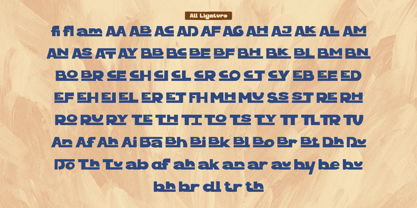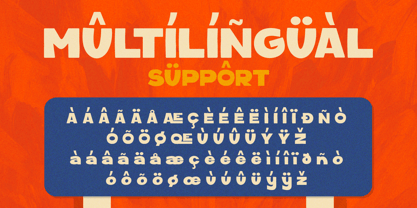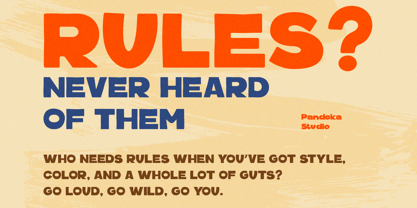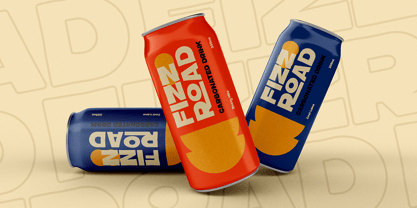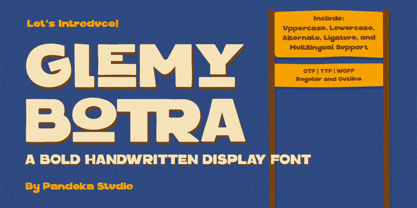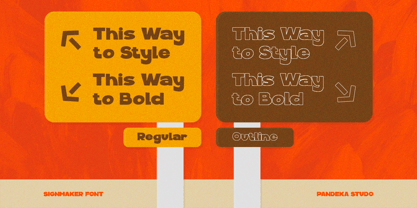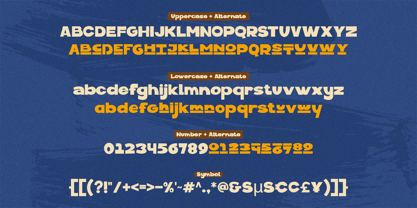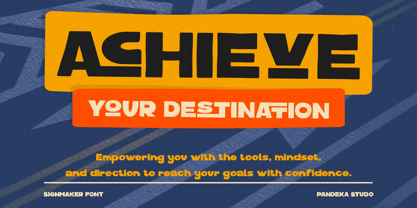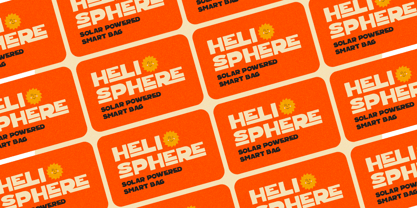
Glemy Botra
The Glemy Botra Font Family was designed by Sagara Nararya and published by Pandeka Studio. Glemy Botra contains 2 styles and family package options.
Glemy Botra is a bold handwritten display font with a retro flair and casual charm. Perfect for strong typography needs like posters, fashion branding, product packaging, magazine covers, or standout quotes. Its playful lettering and eye-catching design bring a modern aesthetic to any project, making it a unique and memorable typeface.
• 2 Style: Regular and Outline
• Full Character Set: Uppercase, lowercase, numbers, symbols, and punctuation
• 150+ Ligatures and alternates